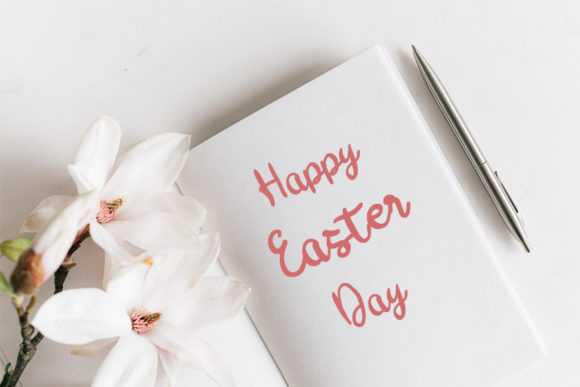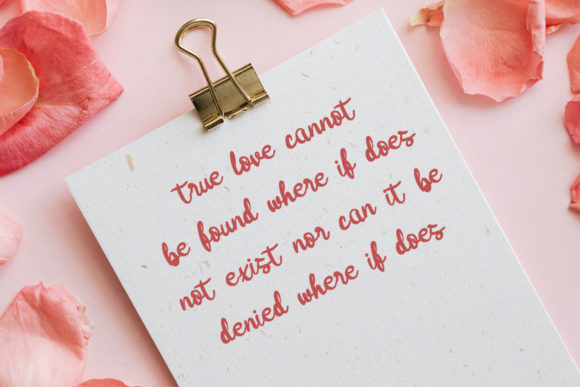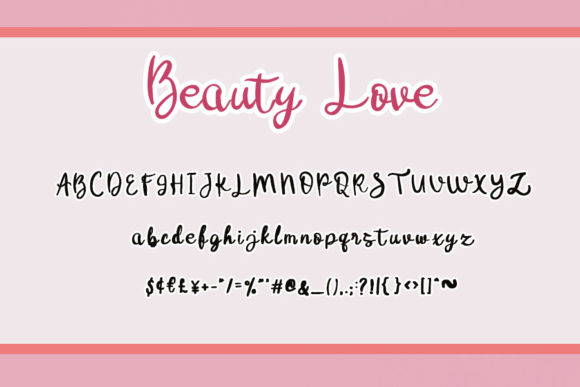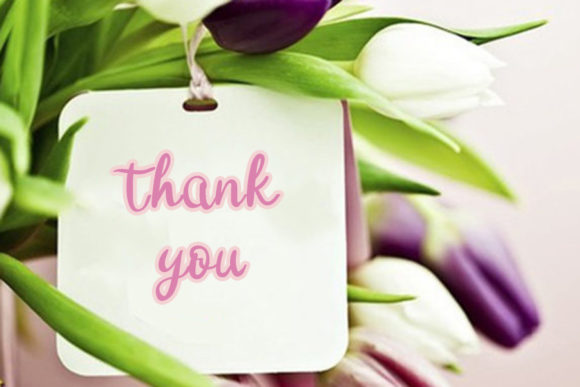
Unleash Your Creativity with Beauty Love Font
Have you ever sat at your desk, staring at a blank page, feeling like your next big idea is just out of reach? You’re not alone. Many creatives have been there, wondering how to bring their vision to life. But then, something clicks. A spark of inspiration ignites, and suddenly the possibilities seem endless. This is the moment when the right tools can make all the difference.
Enter the Beauty Love Font, a versatile and charming handwritten font designed to help you turn your project ideas into stunning works of art. With its warm, romantic, and jolly tone, this font is the perfect companion for any creative endeavor. Whether you’re designing a wedding invitation, a birthday card, or a marketing campaign, Beauty Love Font is sure to add a touch of elegance and sophistication.
Beauty Love Font Key Features
- Font Family: Beauty Love Font offers a range of unique and stylish font families to suit various design needs.
- Size: The font comes in multiple sizes, ranging from 8 to 72 points, making it suitable for various design applications.
- Resolution: The font is optimized for high-resolution displays and printing, ensuring crisp and clear text output.
- Unique Characteristics: Beauty Love Font features elegant, cursive, and handwritten styles, perfect for creating beautiful and romantic designs.
Beauty Love Font Review
When I first came across the Beauty Love Font, I was immediately drawn to its unique and feminine design. ✨ The font features elegant, flowing curves and a delicate touch that makes it perfect for any project that requires a touch of romance. ✨ The font is also highly customizable, allowing you to adjust the size, color, and spacing to fit your specific needs.
However, I did encounter a few limitations. ⚠️ The font can be a bit too ornate for some projects, making it difficult to read at smaller sizes. ⚠️ Additionally, the font may not be compatible with all operating systems or devices, which could lead to display issues.
Overall, I would recommend the Beauty Love Font for projects that require a touch of elegance and romance. However, it may not be the best choice for projects that require a more straightforward or modern design.
Pros and Cons:
- Unique and feminine design ✨
- Perfect for romantic or elegant projects
- May be too ornate for some projects ⚠️
Tips for Getting the Most Out of Beauty Love Font
Use Beauty Love Font for titles, headings, and emphasis. This font is perfect for creating a romantic or elegant look.
Experiment with different font sizes and colors to create a unique visual effect.
Combine Beauty Love Font with other fonts to create a harmonious typography.
Valentine’s Day cards and gifts
Romantic restaurant menus and marketing materials
Alternatives to Beauty Love Font
Great Vibes Font is a beautiful, handwritten script font. It’s perfect for use in wedding invitations, greeting cards, and other creative projects where a personal touch is needed. Compared to Beauty Love Font, Great Vibes Font has a more whimsical feel and is better suited for casual, creative projects.
Carolyna Pro Font is a elegant, modern script font. It’s ideal for use in high-end branding, fashion design, and luxury packaging. Compared to Beauty Love Font, Carolyna Pro Font has a more sophisticated feel and is better suited for formal, professional projects.
Litera Font
Litera Font is a modern, elegant script font. It’s perfect for use in branding, packaging, and advertising where a touch of sophistication is needed. Compared to Beauty Love Font, Litera Font has a more refined feel and is better suited for modern, professional projects.
Soupline Font
Soupline Font is a elegant, modern script font. It’s ideal for use in high-end branding, fashion design, and luxury packaging. Compared to Beauty Love Font, Soupline Font has a more luxurious feel and is better suited for formal, high-end projects.